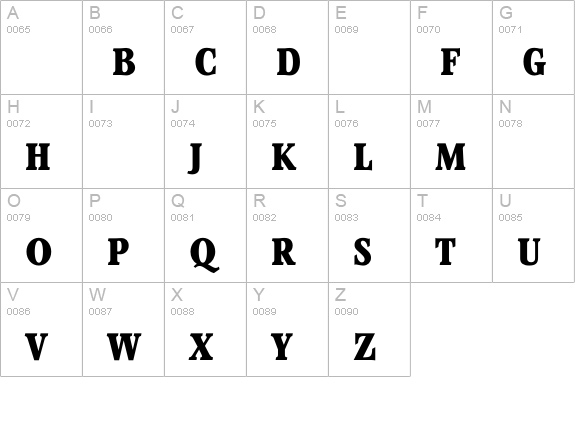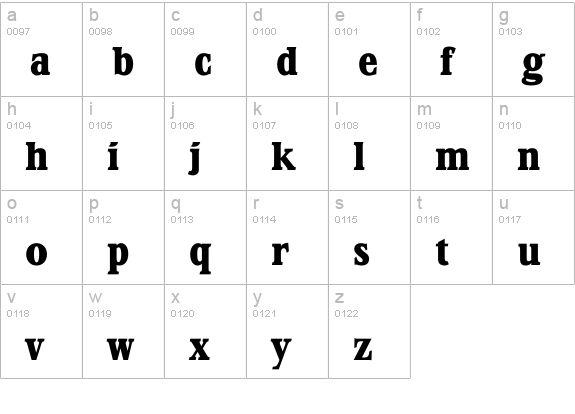
StirlingExtraBold Font Details
StirlingExtraBold font is a striking and bold typeface that commands attention with its strong and impactful presence. Its thick and powerful letterforms exude confidence and authority, making it the perfect choice for headlines, titles, and other prominent design elements. StirlingExtraBold is a versatile font that can be used across a wide range of projects, from branding and advertising to packaging and signage. The best part about StirlingExtraBold font is that it is completely free! That's right, you can download this impressive typeface at absolutely no cost from FontsMarket.com. Whether you're a professional designer looking to add a bold touch to your projects or a hobbyist seeking to elevate your creations, StirlingExtraBold font is readily available for you to use and enjoy. Don't miss out on this fantastic opportunity to enhance your designs with the impactful and eye-catching StirlingExtraBold font!